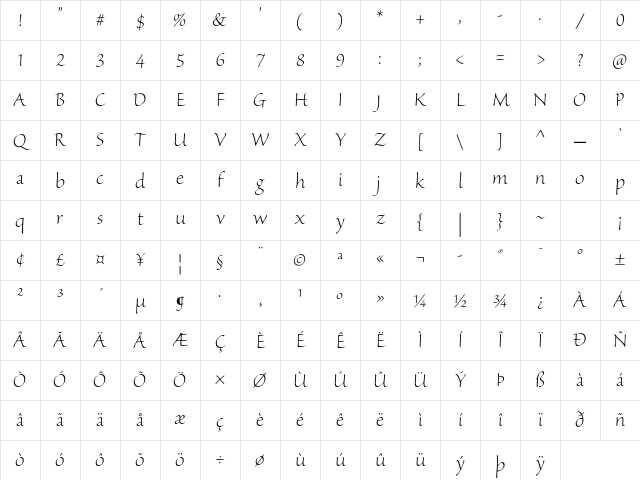
Complete Sanvito Pro Light Display glyph index. Displaying only characters natively supported by Sanvito Pro Light Display font.
Sanvito Pro is built around its visual character rather than neutral utility - its distinctive forms are designed to make an impression at display sizes. Its slender proportions lend an understated elegance to any composition.
Font Pairing: Pair with a clean neutral sans-serif for body copy to let Sanvito Pro's character lead without overwhelming the composition.
Pro Tip: Use Sanvito Pro exclusively at display sizes - it was designed to be seen, not read at length. Let a neutral companion handle body copy.